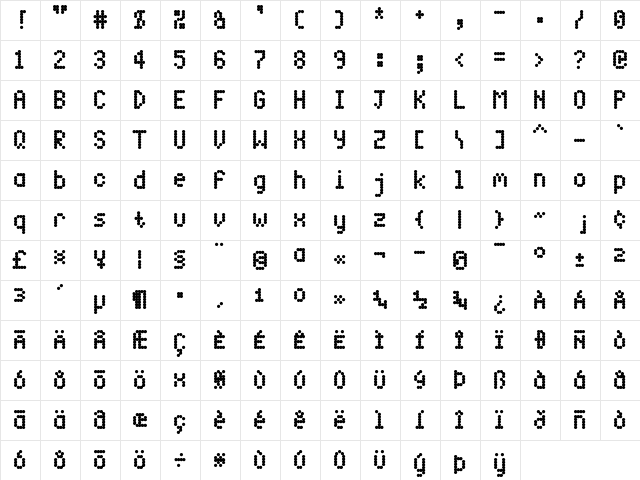
Spotted Rail Ticket Regular
Design Context for Spotted Rail Ticket Typeface
Spotted Rail Ticket takes a measured approach to typography — its balanced proportions and neutral character make it a reliable workhorse for both digital and print work.